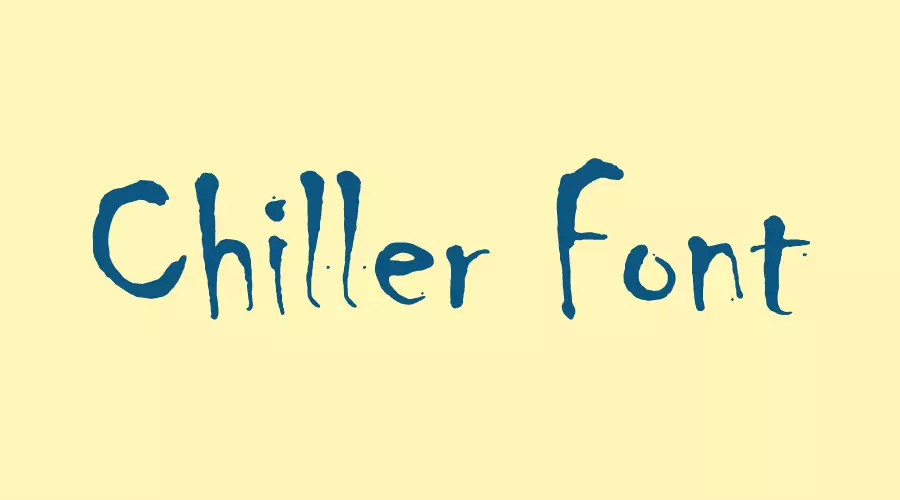
Today, we will talk about a chaotic, reckless font, the Chiller font. It is the work of a British designer named Andrew Smith. In 1995, ITC released Andrew’s work in the market.
The glyphs of this font are undisciplined yet easily readable. When you look at the font, you will feel like someone is having an issue with his ball point pen.
Most of the characters either start or end with thick strokes, having thin strokes at a time. A few Chiller characters have a thick stroke top to bottom. Moreover, the font’s creator designed this font with a 3D touch, which will add liveliness to any text design.
Chiller has 244 glyphs and it includes capital letters, small letters, numbers, and various special characters. The font family includes multiple styles – regular, bold, italic, and medium. Also, this font supports more than 60 international languages.
Uses of Chiller font
Though the font looks a bit like a kid’s handwriting, yet it has a clean texture. Due to its easy-to-read feature, the Chiller font is applicable to a wide variety of text designs. Below are the design fields suitable for this item.
Similar to Chiller Font
- Smack Plain font – In visuality, the Smack Plain font is the same as Chiller. Macromedia Fontgrapher is the designer of this font. They released the font in 1999. The Smack Plain font has 227 glyphs and features uppercase and lowercase letters, numbers, and special characters.
- Linotype Dropink font – Like the Chiller font has thick strokes in its characters, the Linotype Dropink font also has intentional ink blots in its characters. Christine Voigts designed this font and Linotype published it. The font has 447 glyphs featuring large caps, small caps, numbers, and special characters.
- Sucu Auto font – Another irregular font like Chiller, though way more uneven than the latter one. The Sucu Auto font looks like an individual who holds the pen for the first time. Mark Clifton designed this font and GarageFonts released this font.
- Carumba font – A Californian designer named Jill Bell designed this font and ITC published it. The Carumba font comes with 2 styles – Regular and Hot Caps. If you are looking for a Chiller alternative that can add fun and liveliness to your project, try this font. It includes 294 glyphs in total.
- ITC Jaft font – Originally designed with a bamboo pen, the ITC Jaft font has unusual angles yet uniqueness. A New York designer named Frank Marciuliano designed this font and ITC published it. The ITC Jaft font has 293 glyphs featuring small caps, large caps, numbers, and special characters. Some of the special characters are straight unlike the rest of the glyphs.
The Chiller font supports more than 60 languages, including English, Latin, Croatian, Hungarian, Polish, Vietnamese, Spanish, Swedish, etc.
Chiller Font at a Glance
| Font name | Chiller Font |
| Font family | Sans Serif |
| Designed by | Andrew Smith |
| Released by | ITC Linotype |
| Release date | 1995 |
| Glyph count | 244 |
| Supported languages | 60+ |
| Similar fonts | Smack Plain font, Linotype Dropink font, Carumba font, etc. |
This font was released in 1995.
Andrew Smith designed the Chiller font.
The font has 244 glyphs.
The Chiller font supports 60+ international languages.